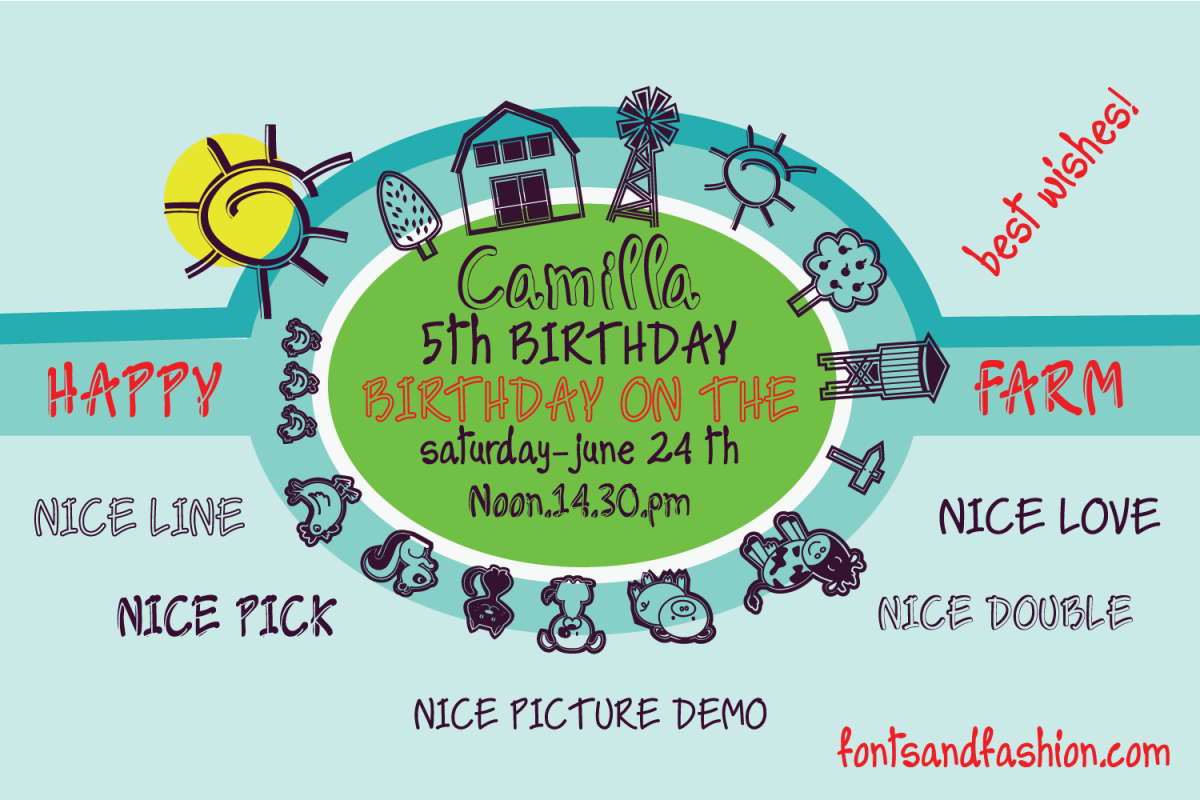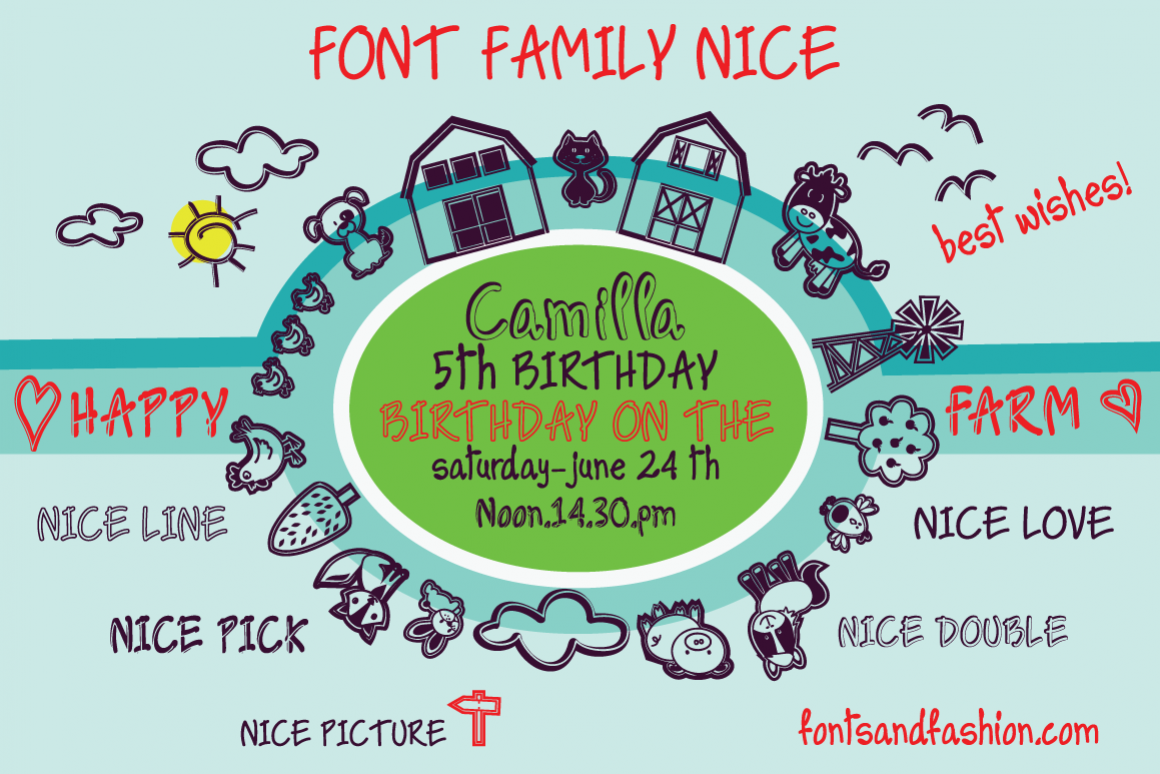
NICE family
NICE
Where does a love for lettering come from?
I don't have a precise memory of the moment I fell in love with writing, but I remember when I was a teenager, I enjoyed studying and designing personalized greeting cards for weddings, birthdays, holidays, Christmas... Every holiday was an opportunity to show off my creativity. I made cards with theme drawings,  and, most of all, writings I created especially for every occasion.
Nice comes from the invitation cards to my daughter Camilla's 5th birthday party in a farmhouse! Many years have gone by since then, but that cheerful writing I used for a joyful occasion, have stayed and now come back to life in the Nice font...
Since the first drawn letters, the font has become larger and it features new elements, offering you 5 different versions ( NICE love , NICE pick , NICE line , NICE double , NICE picture ) but it has kept its original party personality... with a clean, easy to read, cheerful lettering .